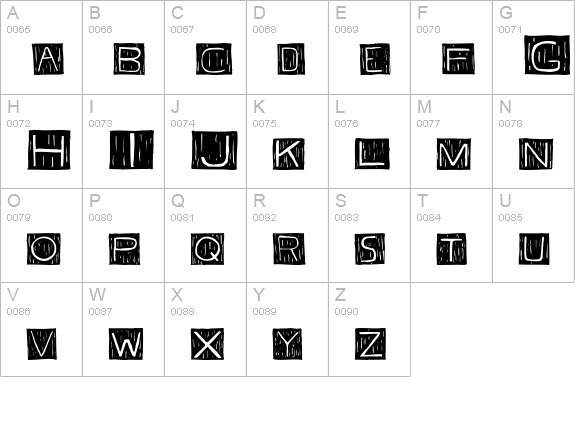
FranzKafka Font Details
Introducing FranzKafka font, a modern and stylish typeface that exudes elegance and sophistication. With its sleek lines and unique design, this font is perfect for adding a touch of class to any project. Whether you're working on a logo, branding materials, or a website, FranzKafka font will elevate your design to the next level. The best part? FranzKafka font is completely free to download at FontsMarket.com. Yes, you read that right - you can enhance your projects with this stunning font without spending a dime. Don't miss out on the opportunity to elevate your design game with FranzKafka font. Download it today and let your creativity soar!